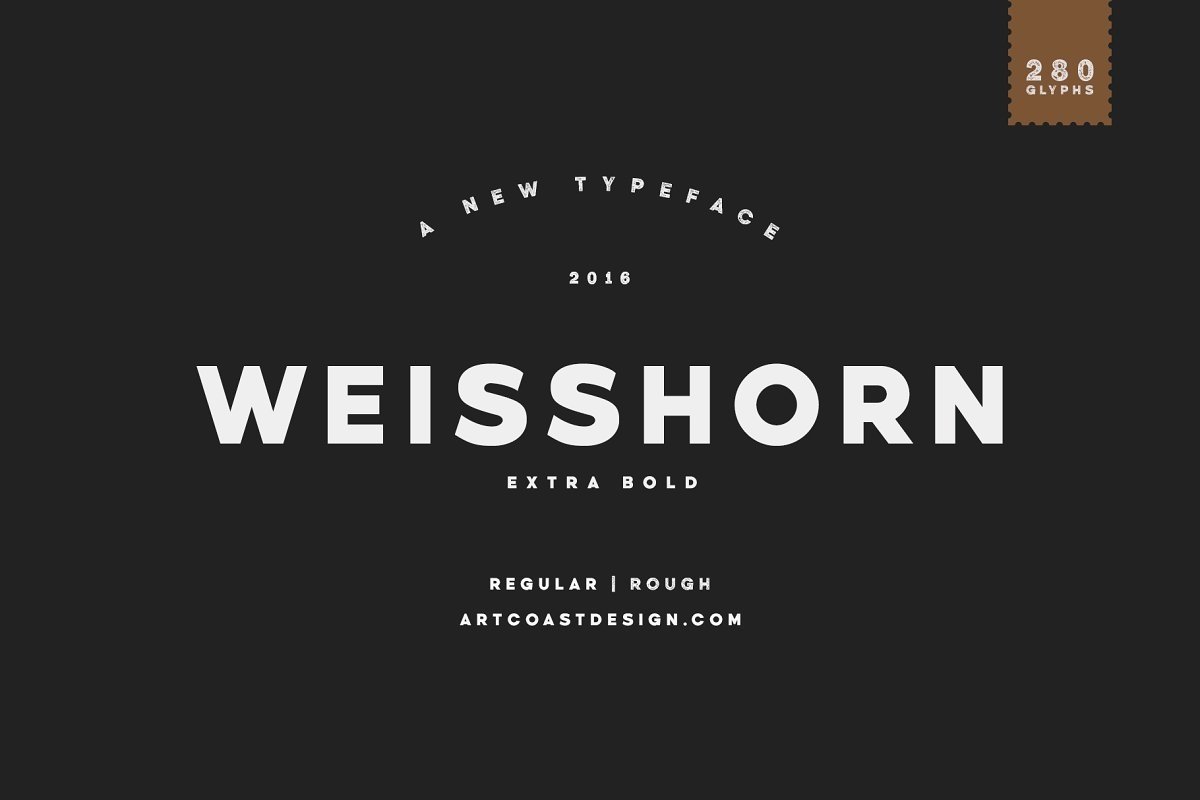
Weisshorn Typeface
Weisshorn
Weisshorn Rough
Weisshorn received its name in honor of in the Pennsylvania Alps in Switzerland. When creating the font, I wanted to convey the spirit of the rocky mountains, the snow-capped peaks and the strength that the rocks have stored for hundreds of years. Weisshorn Typeface is a new font with Rough version, which includes 280 glyphs and alternative characters. The font looks great on various packages, goods with food. You can also use it to create logos, shortcuts and other design elements. With the font in the kit are kraft logos.Product Content: